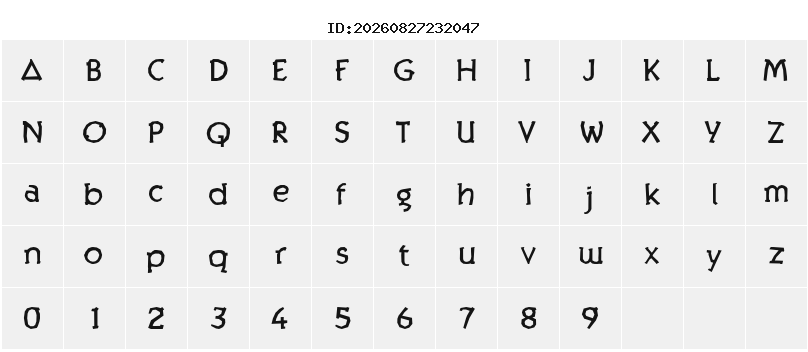
Twig.ttf is a modern, elegant sans-serif font designed for ultimate readability and visual harmony. Perfect for branding, headlines, web design, and print materials.